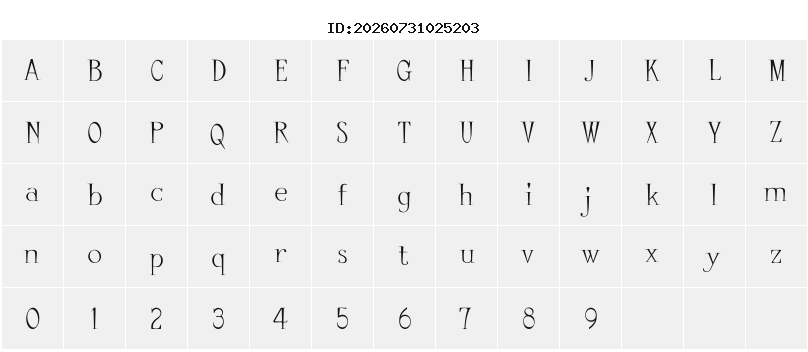
Little Carpenter Preview
• Font Name: Little Carpenter
• Full Font Name: Little Carpenter
• PostScript Name: LittleCarpenter
• Designer: Unicode platform by Chris Harvey (http://www.languagegeek.com/) & typeface design by Chung deh Tien
• Manufacturer: Chung deh Tien
About Little Carpenter.ttf
Little Carpenter.ttf is a modern, elegant sans-serif font designed for ultimate readability and visual harmony. Perfect for branding, headlines, web design, and print materials.